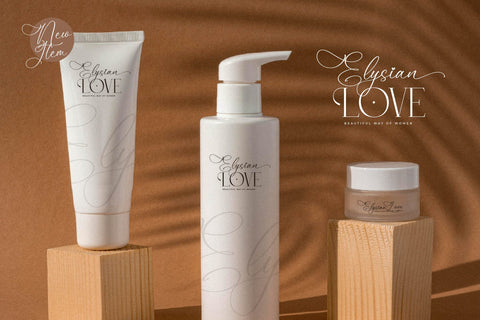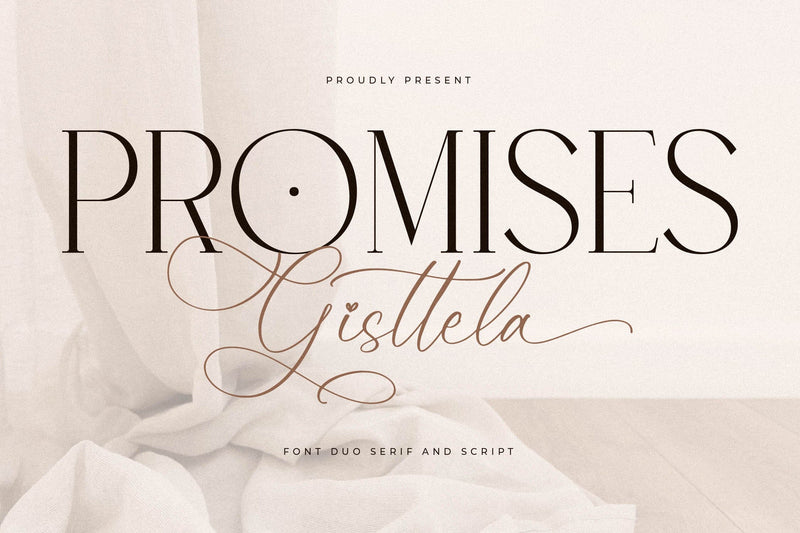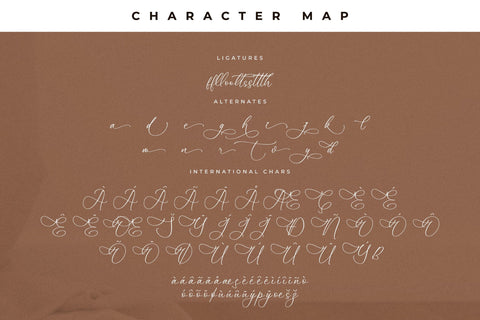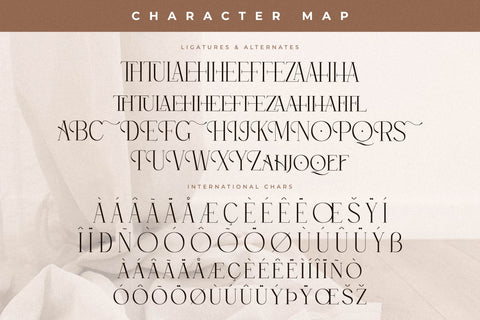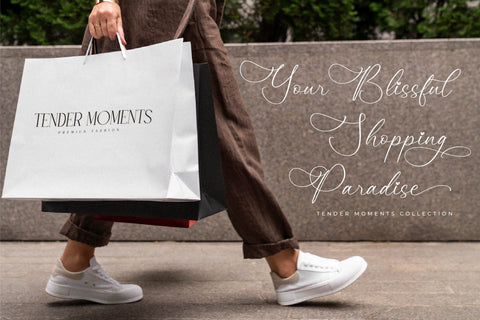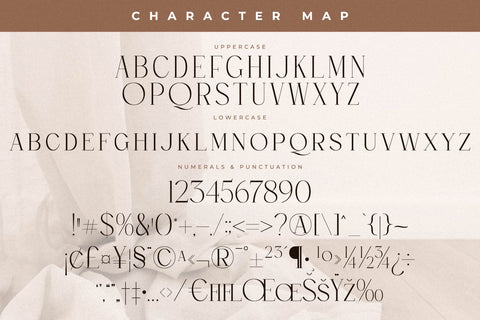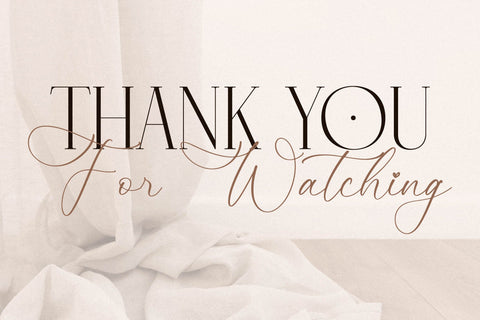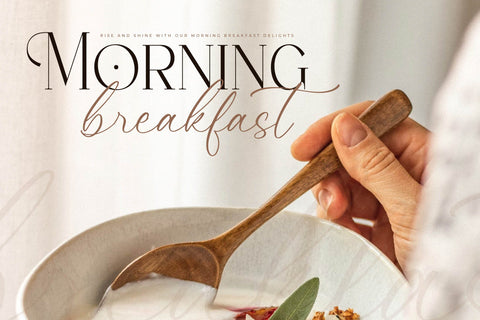
Promises Gisttela Font Duo
Proudly present Promises Gisttela Font Duo , created by Storytype,
A serif and script typeface that has own unique style & modern look.